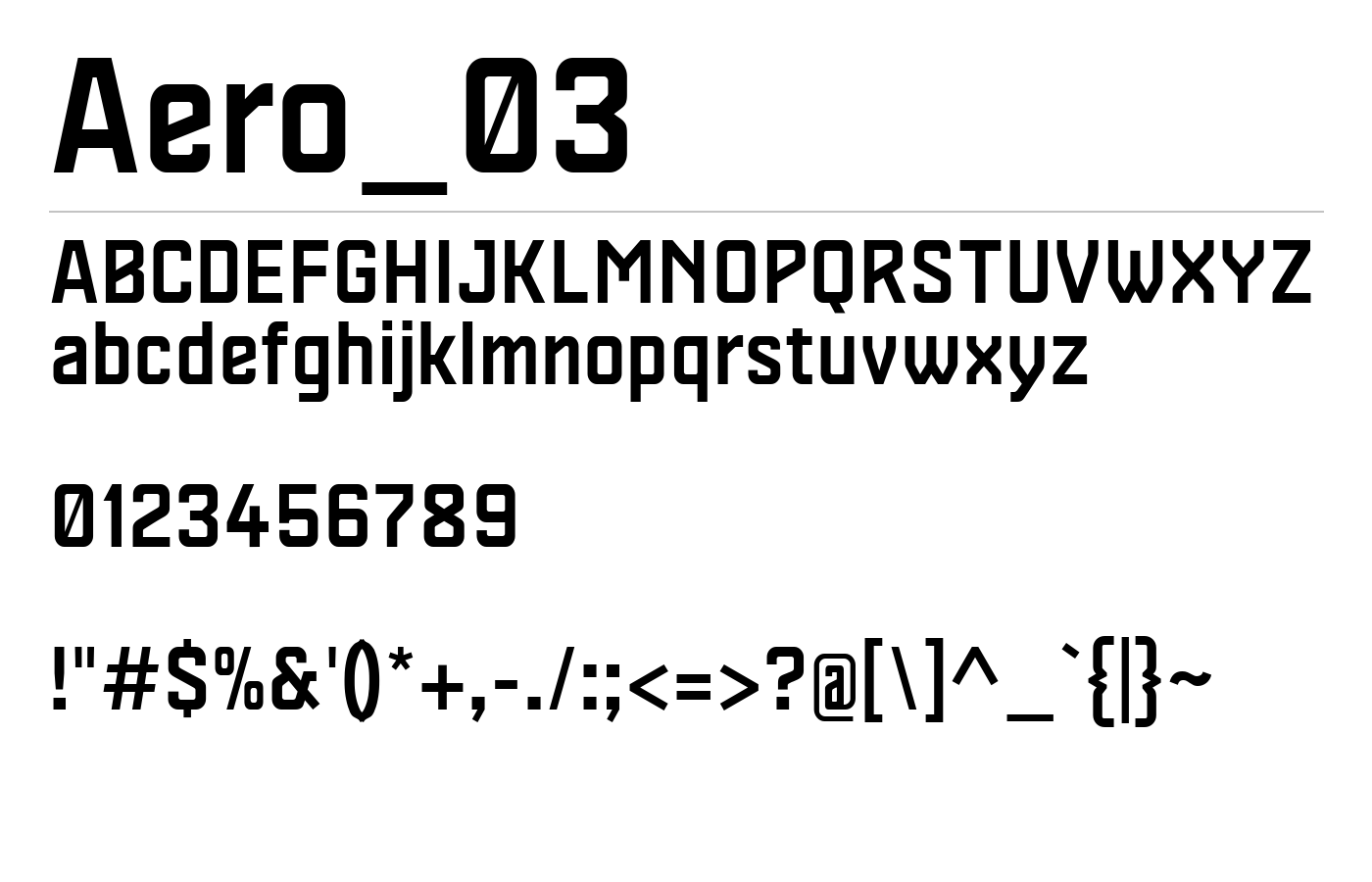
Aero_03 is a bold, condensed sans serif font with a modern, geometric style that exudes strength and clarity. Its tall x-height and sharp, angular letterforms make it highly readable and ideal for impactful headlines, branding, and digital use where a contemporary, technical vibe is desired. This font works especially well in tech, sports, and futuristic design contexts, providing a confident and dynamic visual presence.
Aero_03 Font
About Aero_03 Font